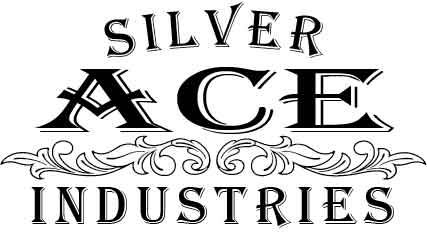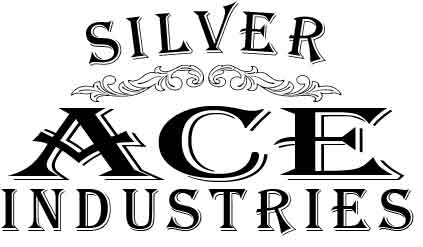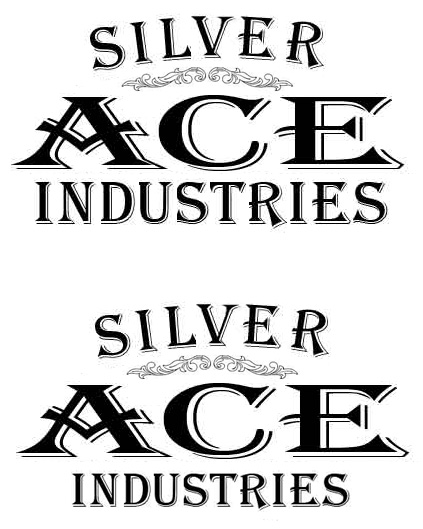
I'm uploading this image of my recent work for your comments, critique and criticism.
First off, Nice Work! Thanks for posting it.
I'll make a few suggestions, since it appears you are asking for them.
First, I'd tweak, or reduce the kerning on the LV combination in SILVER and a little bit between the AC in ACE.
I'd probably move the filigree from between the ACE and INDUSTRIES and maybe make it smaller and put it under the arched Silver.
I'd think you'd want the reader to see ACE INDUSTRIES as more or less a single message.
It is possible you are wanting people to read this as ACE Silver Industries?...or is it Silver ACE Industries?
Going back to the kerning, think of filling the space between each of the letter pairs with "b-b"s (this is variable based on the size of the letters...could be beach balls it doing a billboard).
In the word INDUSTRIES, you can view the space between the IN combination, then let that value (number of BBs) affect the rest of the kerning pairs. If so, the space between ND is probably the same, but you'd want to reduce the space between the DU, US, TR to more or less equal the "space or volume of BBs" between the IN pair.
Hey Mike, Thanks its sure great to have the input. (the company is "Silver Ace Industries")
My design after playing with some of Mike's comments.
I wouldn't want to say either of these are "better" than your design, but are offered as alternatives.
I changed the V by replacing it with the top of the serif on the N. In the top version, the letters in INDUSTRY are the same size as before, but just spaced closer.
You have to be careful with filigrees and ornaments to keep them from overpowering the main copy. That can sometimes be adjusted by the color choices but the idea is still the same.
Mike, I also played with that "V" shortly after uploading some the changes you suggested.